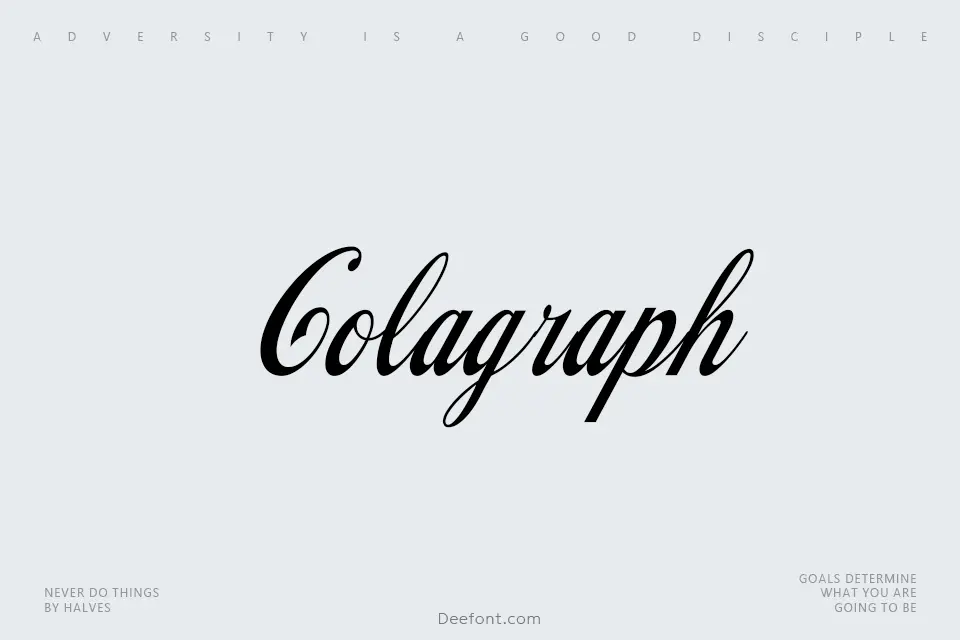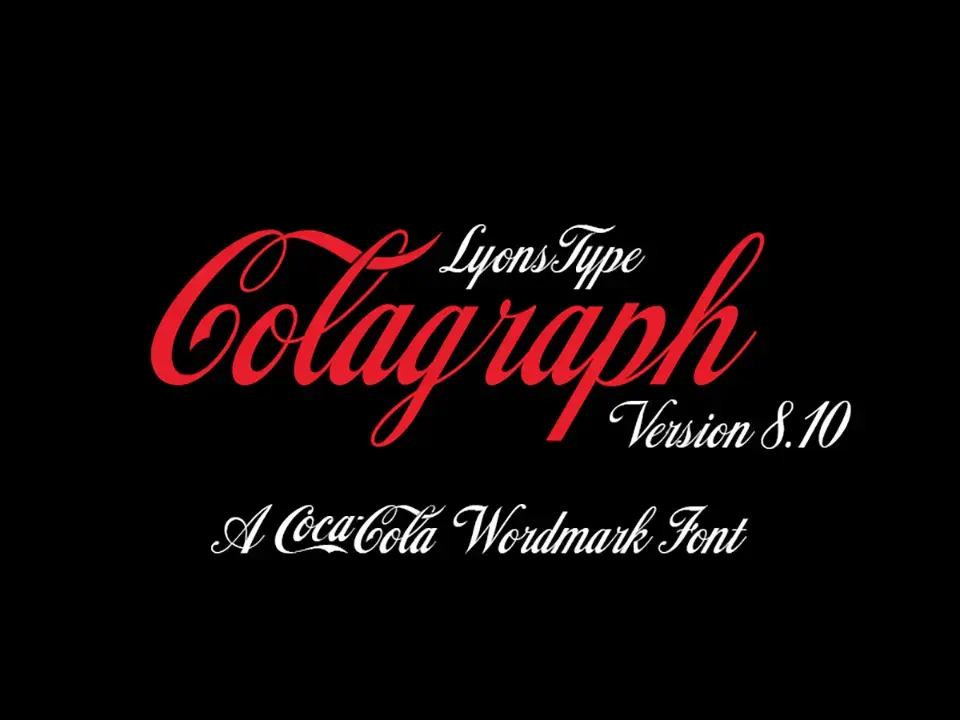
Colagraph Font
Colagraph is a dynamic script font designed by LyonsType, reviving the classic 1974 Cola Script aesthetic. With its fluid, ribbon-like strokes and retro energy, this typeface is ideal for vintage logos, beverage packaging, and nostalgic headlines. It captures the timeless spirit of 70s advertising, making it a perfect choice for bold, expressive displays.